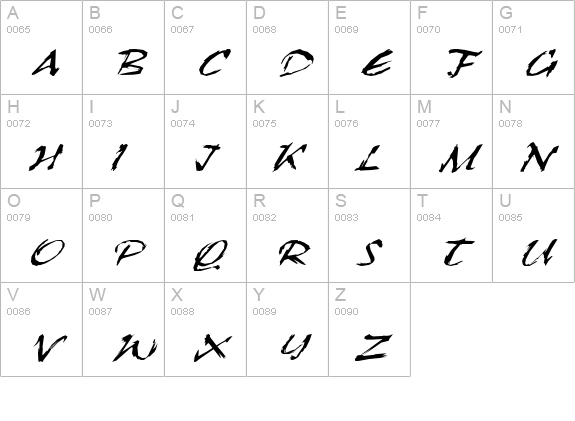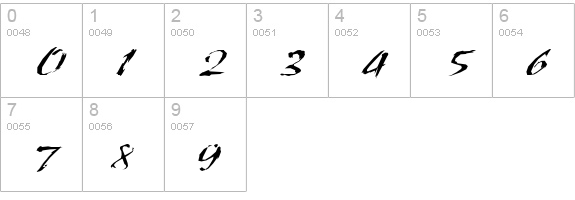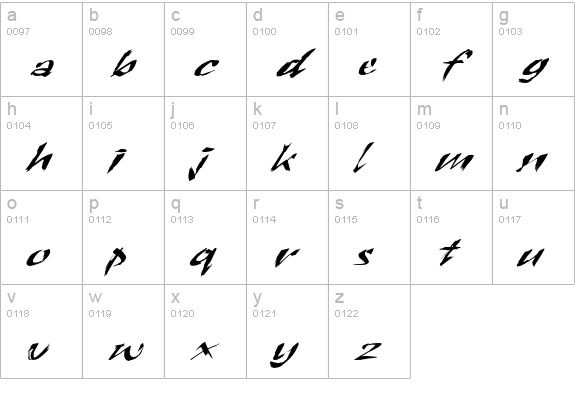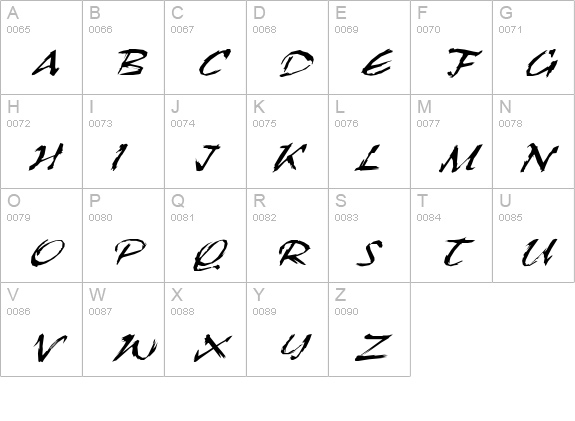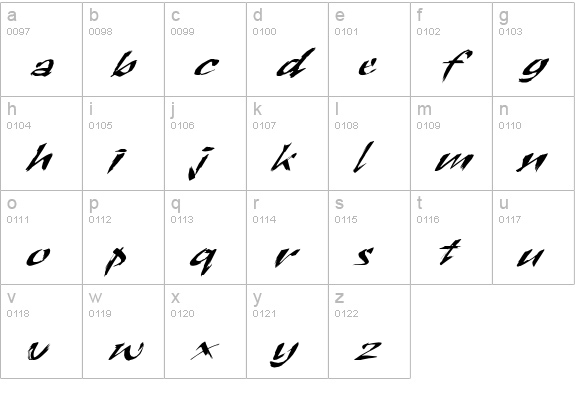
SctratchExtended Italic Font Details
SctratchExtended Italic is a distinctive, italic variant in the SctratchExtended typeface family \xE2\x80\x94 well suited to design and typography projects.
Introducing ScratchExtended Italic, a captivating and versatile typeface that adds a touch of elegance and sophistication to any design project. This font exudes a sense of fluidity and grace, with its slanted and slightly elongated letterforms that effortlessly draw the eye. ScratchExtended Italic is perfect for those seeking a font that combines modernity with a hint of traditional calligraphic influence. Its italicized styling adds a unique flair, making it an ideal choice for branding, logo design, editorial layouts, and more. This font boasts a wide-ranging character set, ensuring that it can adapt to various design needs. From lowercase and uppercase letters to numerals, punctuation marks, and special characters, ScratchExtended Italic offers the versatility required to make your designs truly stand out. What sets ScratchExtended Italic apart is not only its exceptional aesthetics but also its accessibility. This font is freely available to download at FontsMarket.com, allowing designers, creatives, and enthusiasts to effortlessly access and utilize its beauty in their projects. Whether you're a seasoned professional or a budding designer, ScratchExtended Italic offers a world of possibilities at no cost. Embrace the elegance and versatility of ScratchExtended Italic today and witness the transformative power it brings to your designs. With its timeless appeal and its ability to elevate any project, this font is an essential addition to your typographic toolkit.